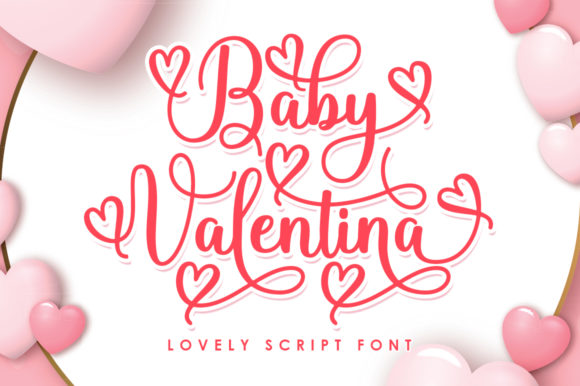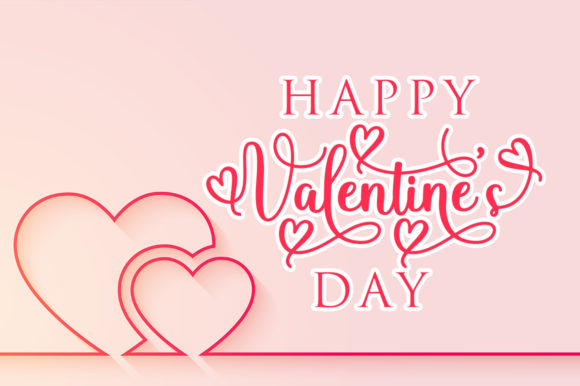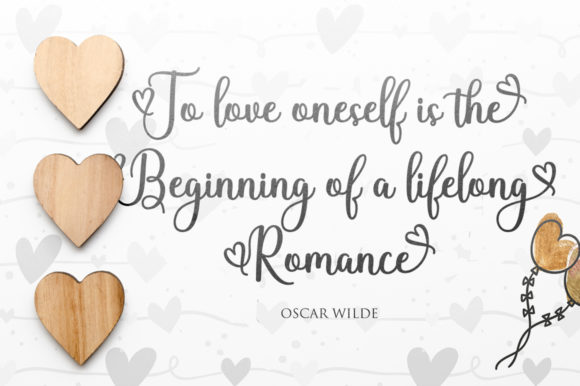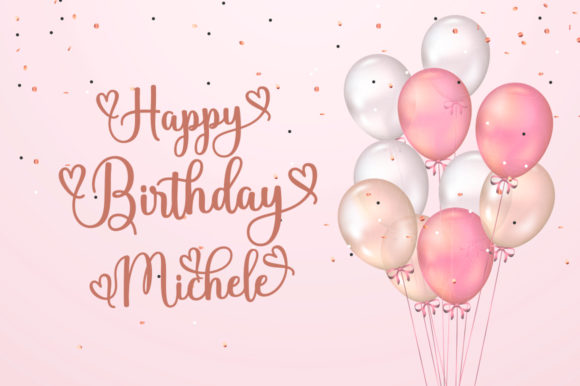
Baby Valentina Font: A Cute Handwritten Script for Wedding Designs
About the Baby Valentina Font
The wait is over! The incredible Baby Valentina Font is now available for your design toolkit. Baby Valentina is an enchanting handwritten font. This adaptable script font has a wide spectrum of applications ranging from greeting cards to headlines and is guaranteed to add a romantic feel to your next project.
Baby Valentina’s delicate, romantic feel makes it ideal for projects requiring a touch of elegance and femininity, such as wedding invitations, branding for beauty products, or feminine apparel. It excels in headlines, short quotes, and logos, adding a handcrafted charm. However, its script nature makes it less suitable for body text or UI elements where readability is paramount; long paragraphs set in Baby Valentina would be difficult to read.
Pairing Baby Valentina with a clean sans-serif like Montserrat for body text creates a strong contrast and balanced aesthetic. Alternatively, a classic serif font such as Playfair Display could enhance its vintage charm, while a geometric sans-serif like Futura would provide a modern counterpoint.
The font exudes a charming, softly elegant personality. Its delicate strokes and swashes evoke a sense of warmth and intimacy, making it particularly well-suited for brands aiming to communicate grace and sophistication.
Baby Valentina Font Usage Examples
Baby Valentina Font Example